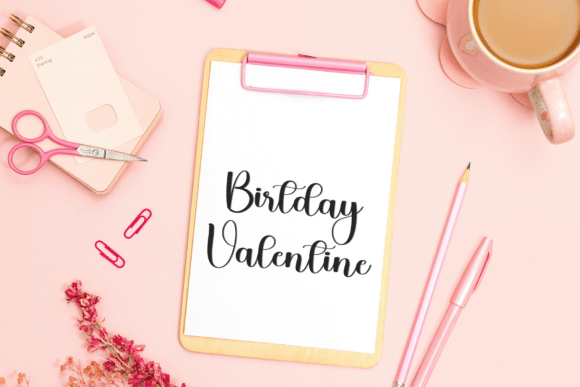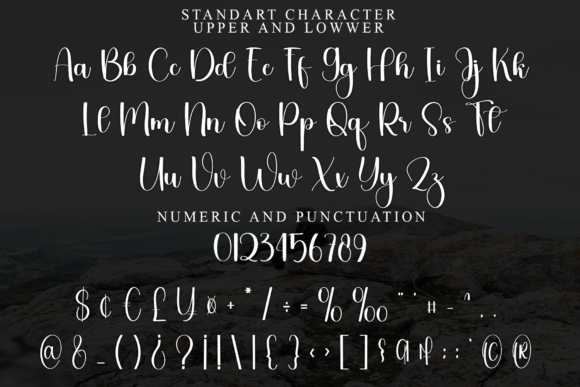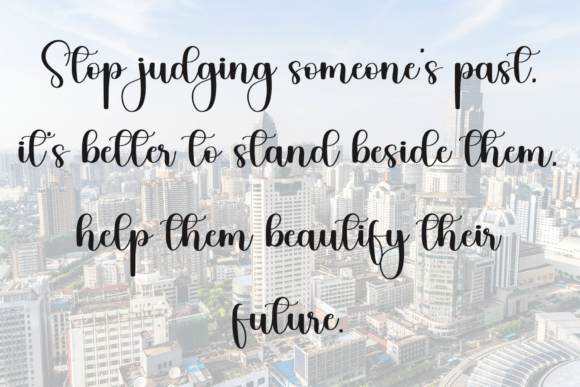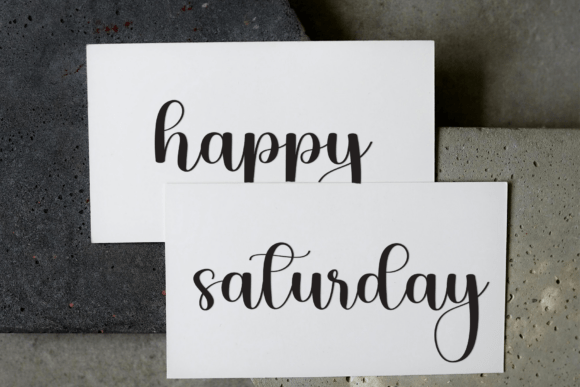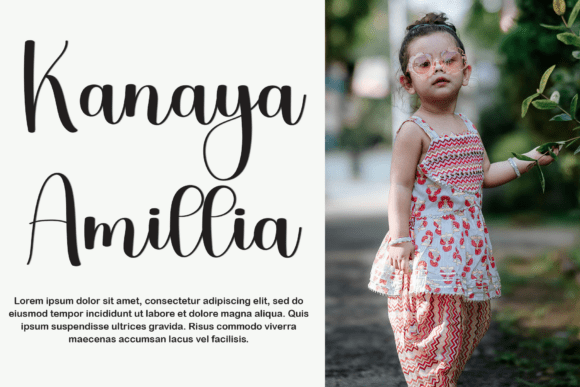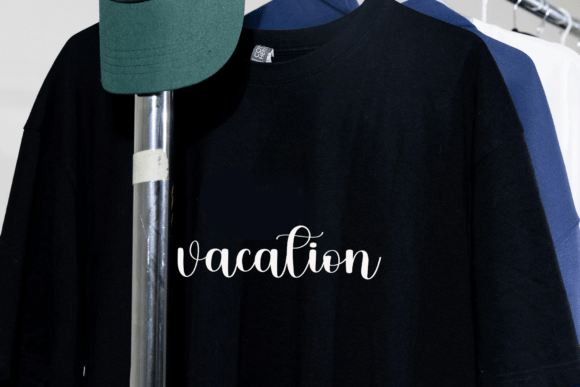
Introducing Cuties Paeches Font: The Ultimate Holiday Typeface
The holiday season is upon us, and what better way to get into the spirit than with a festive and merry typeface? Look no further than Cuties Paeches Font, a decorative and whimsical font that’s perfect for adding a touch of enchantment to your designs. In this article, we’ll dive into the world of Cuties Paeches and explore its features, uses, and benefits for designers and crafters.
Cuties Paeches Font is a holiday-themed typeface that’s designed to capture the magic and wonder of the season. With its decorative elements and whimsical flair, it’s the perfect addition to any design project that’s looking to evoke a sense of cheer and nostalgia. Whether you’re creating greeting cards, gift tags, or holiday-themed projects, Cuties Paeches is the ideal font to bring your words to life.
Cuties Paeches Font is a versatile typeface that’s suitable for a wide range of design projects. Whether you’re a professional designer or a crafter looking to add a personal touch to your creations, this font is perfect for:
- Greeting cards: Add a touch of festive cheer to your holiday cards with Cuties Paeches.
- Gift tags: Make your gifts stand out with beautifully designed tags featuring this whimsical font.
- Holiday-themed projects: From invitations to party decorations, Cuties Paeches is the perfect font to add a dash of holiday magic to your designs.
Why Choose Cuties Paeches Font?
So why choose Cuties Paeches Font for your holiday design projects? Here are just a few reasons:
- Unique and eye-catching: Cuties Paeches is a one-of-a-kind font that’s sure to grab attention.
- Festive and merry: This font is designed to capture the spirit of the holiday season.
- Versatile: Suitable for a wide range of design projects, from greeting cards to holiday decorations.
Tips for Using Cuties Paeches Font
Here are a few tips for getting the most out of Cuties Paeches Font:
- Experiment with different sizes and colors to add visual interest to your designs.
- Pair Cuties Paeches with other fonts to create a unique and eye-catching combination.
- Use the glyphs and ligatures to add a touch of personality to your designs.
- Don’t be afraid to get creative and try new things – Cuties Paeches is a versatile font that’s perfect for experimenting with different design styles.